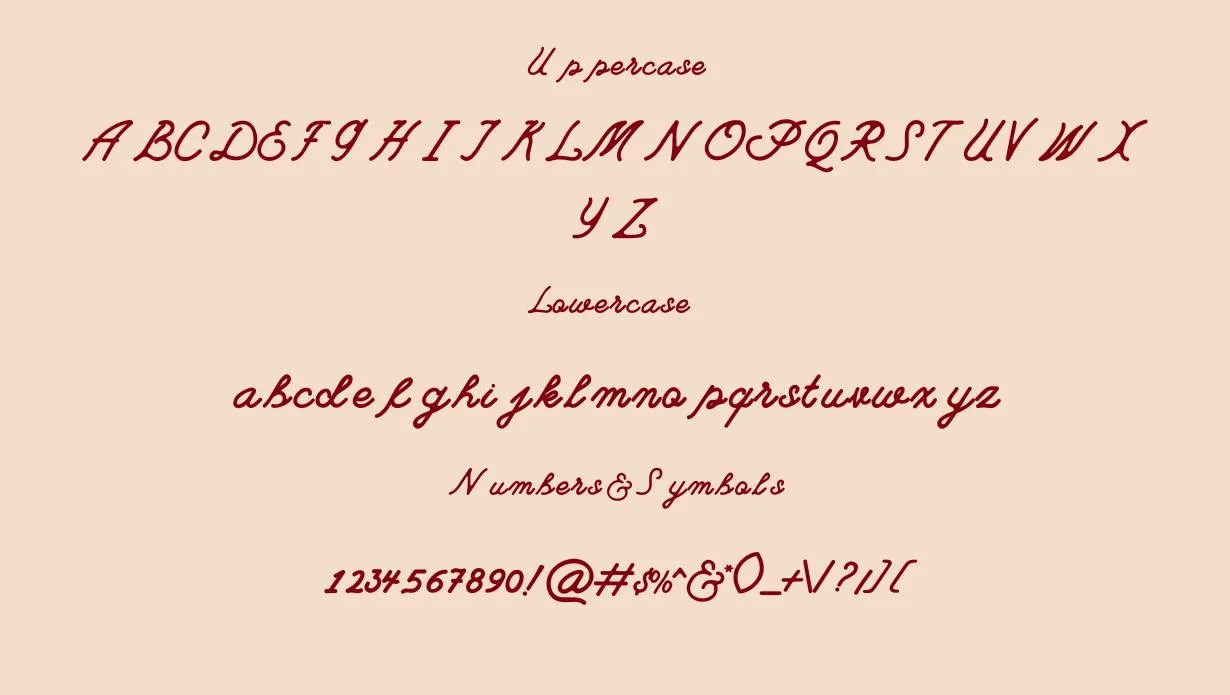
Campground font is an amazing handwritten font that was inspired by nature’s beauty. It was designed by Ramandhani and manufactured by Typomakers. It follows italic writing styles which makes it look more beautiful. It has 191 characters 270 glyphs and 1000 units per Em. Unicode supported BMP only.
The weight of the font is Semi-light and its width is medium(normal).
You can make amazing wedding card designs, birthday decorations, and other event invitations by using this font. The look of this typeface is very classy and you can make both print and digital media projects by using it.
| Name | Campground Font |
| Designer | celcius design |